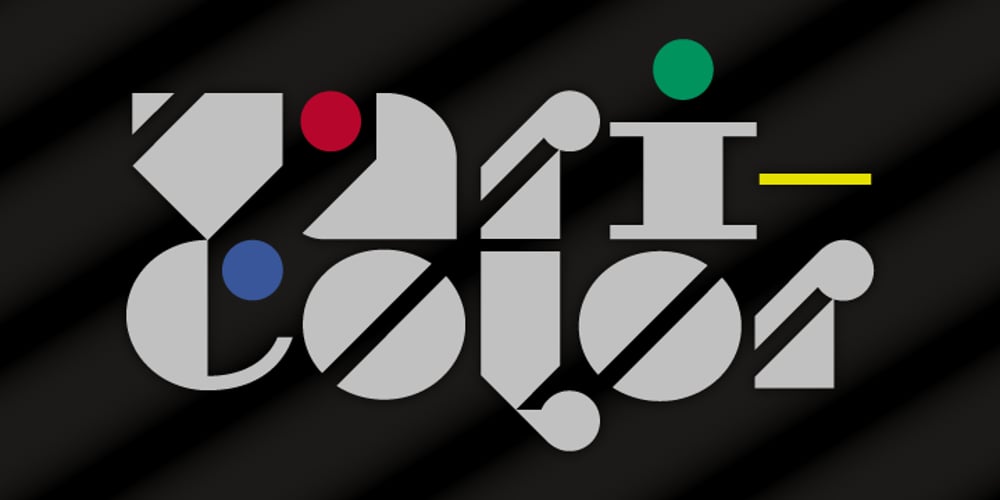
BD Varicolor Font Family was designed by published by Typedifferent. BD Varicolor contains 1 styles and family package options. BD Varicolor is a display font with a certain twist of Swing and Charleton.